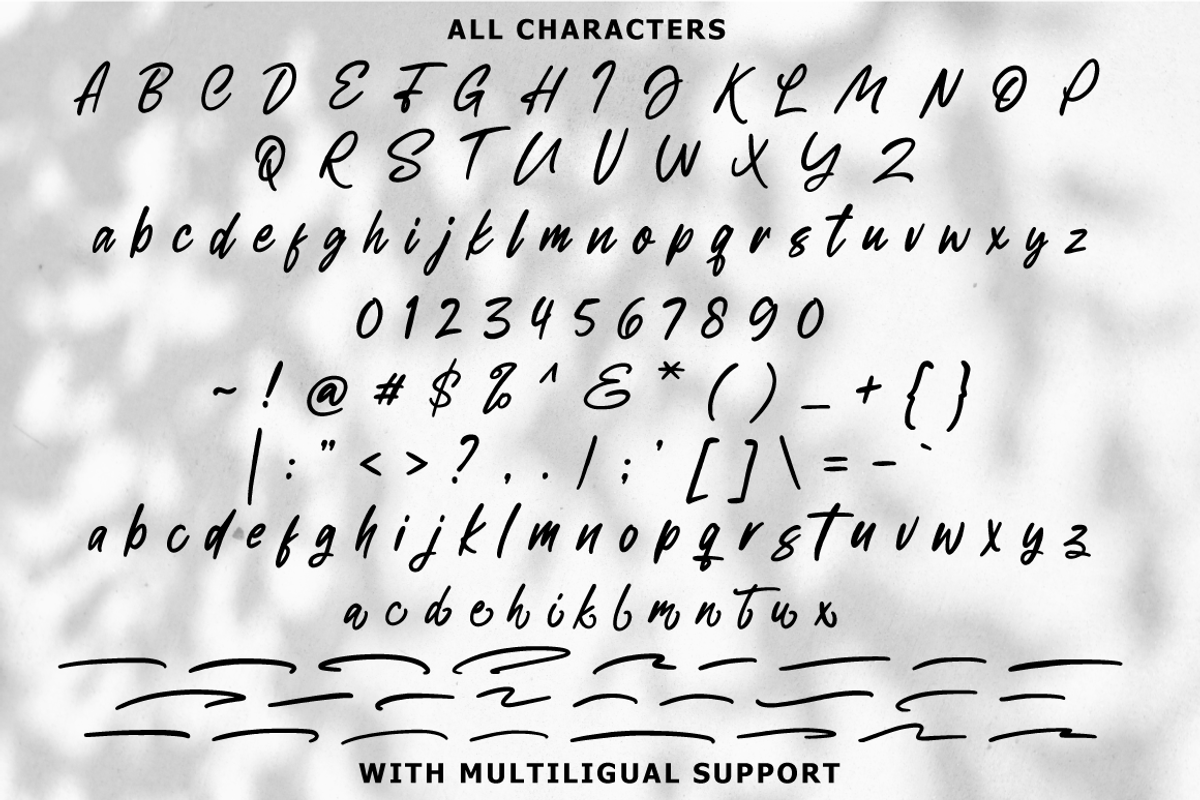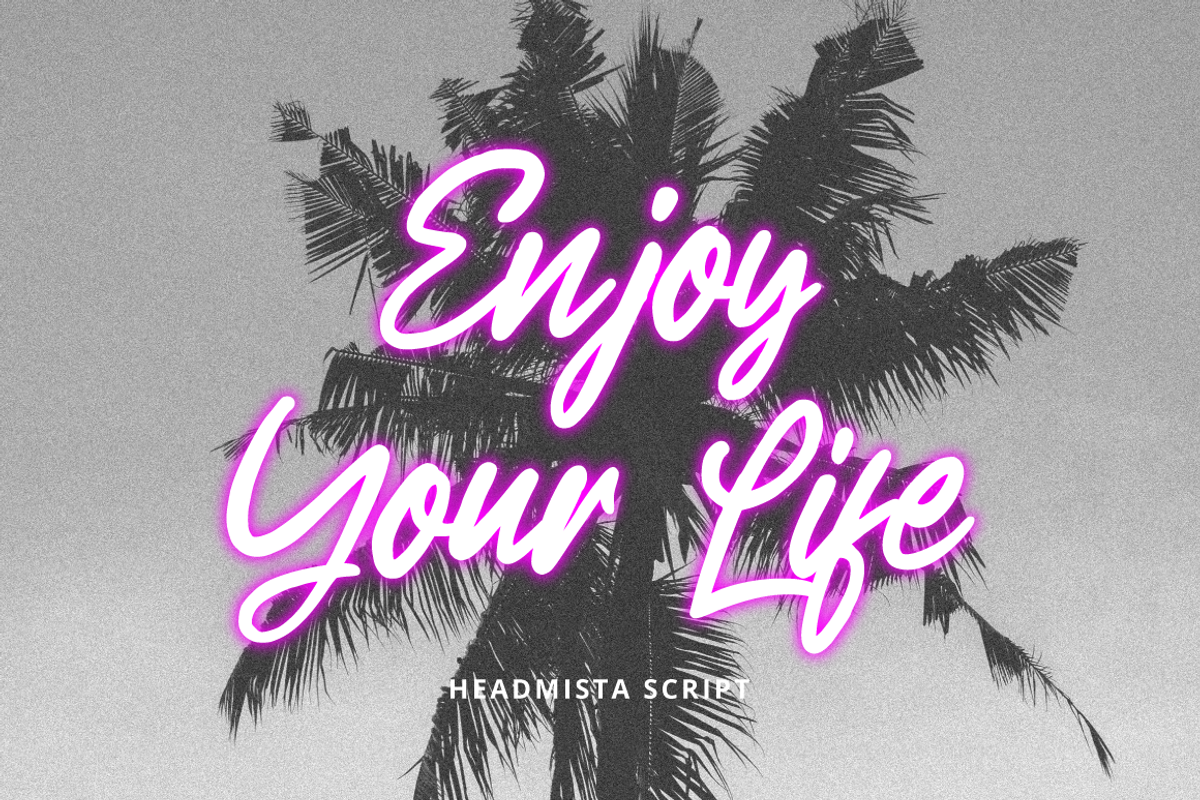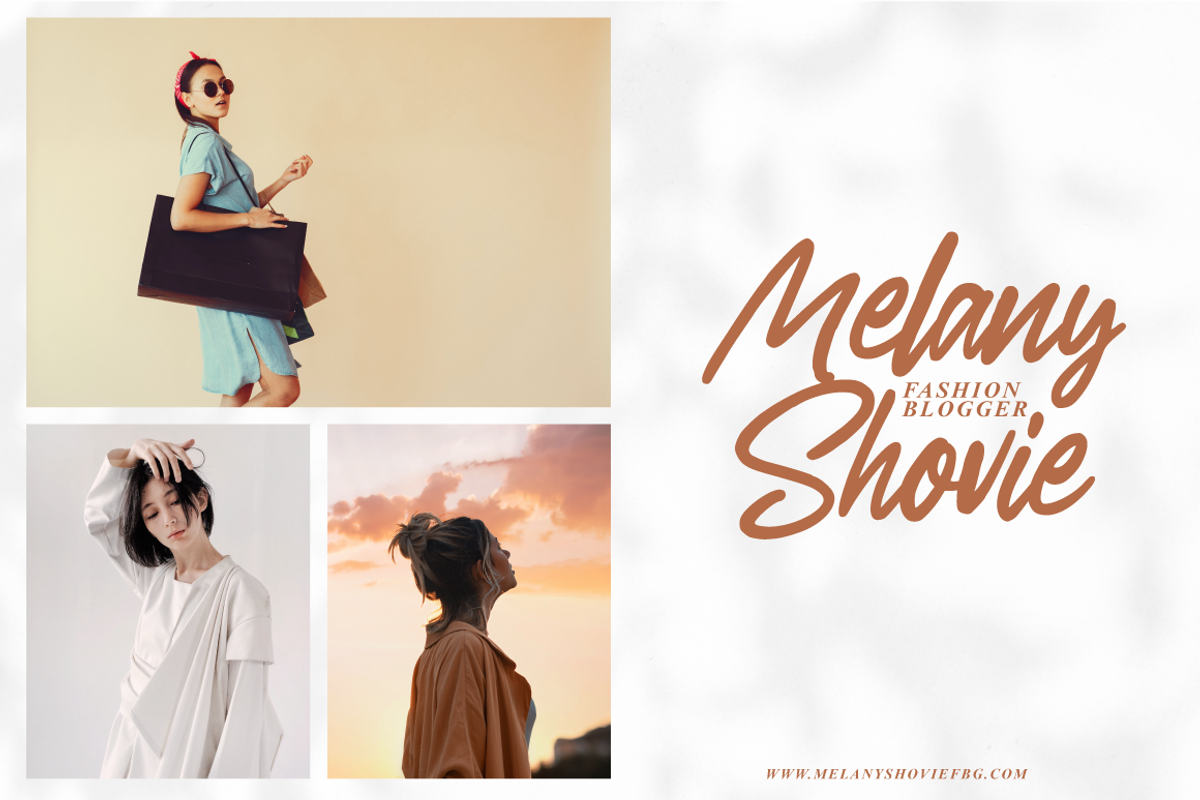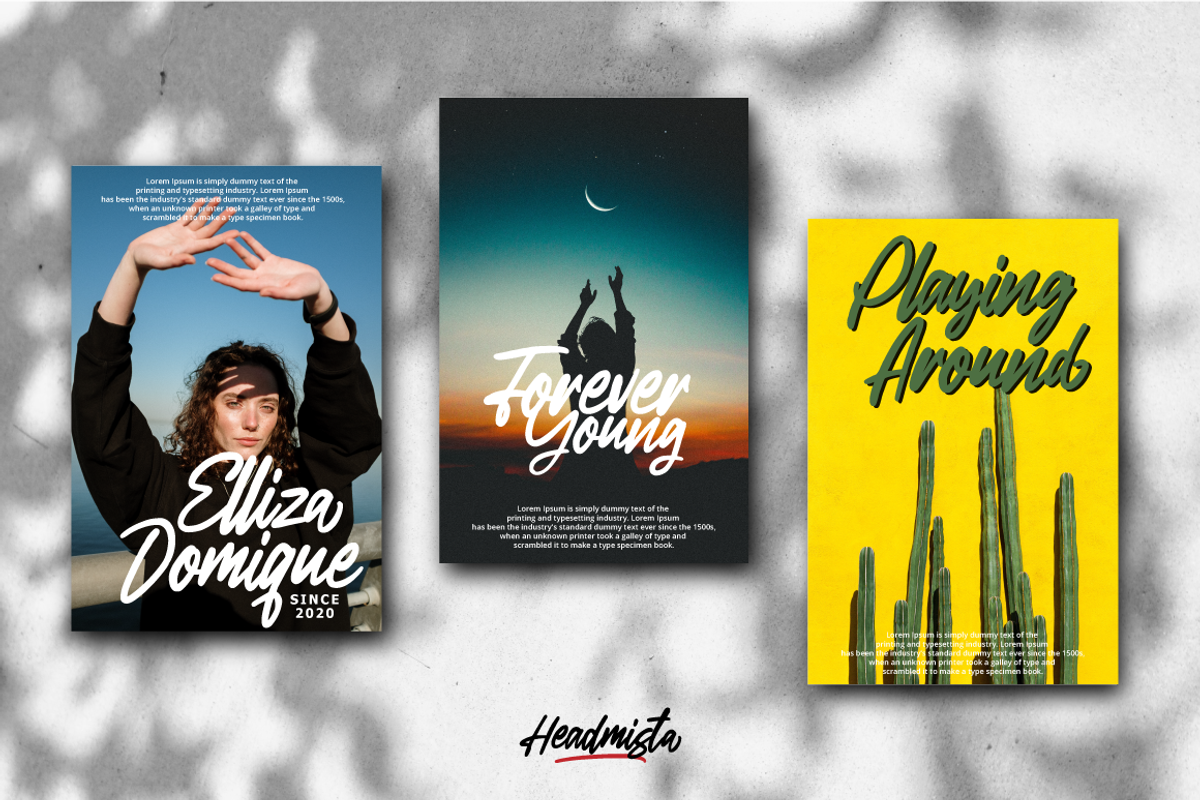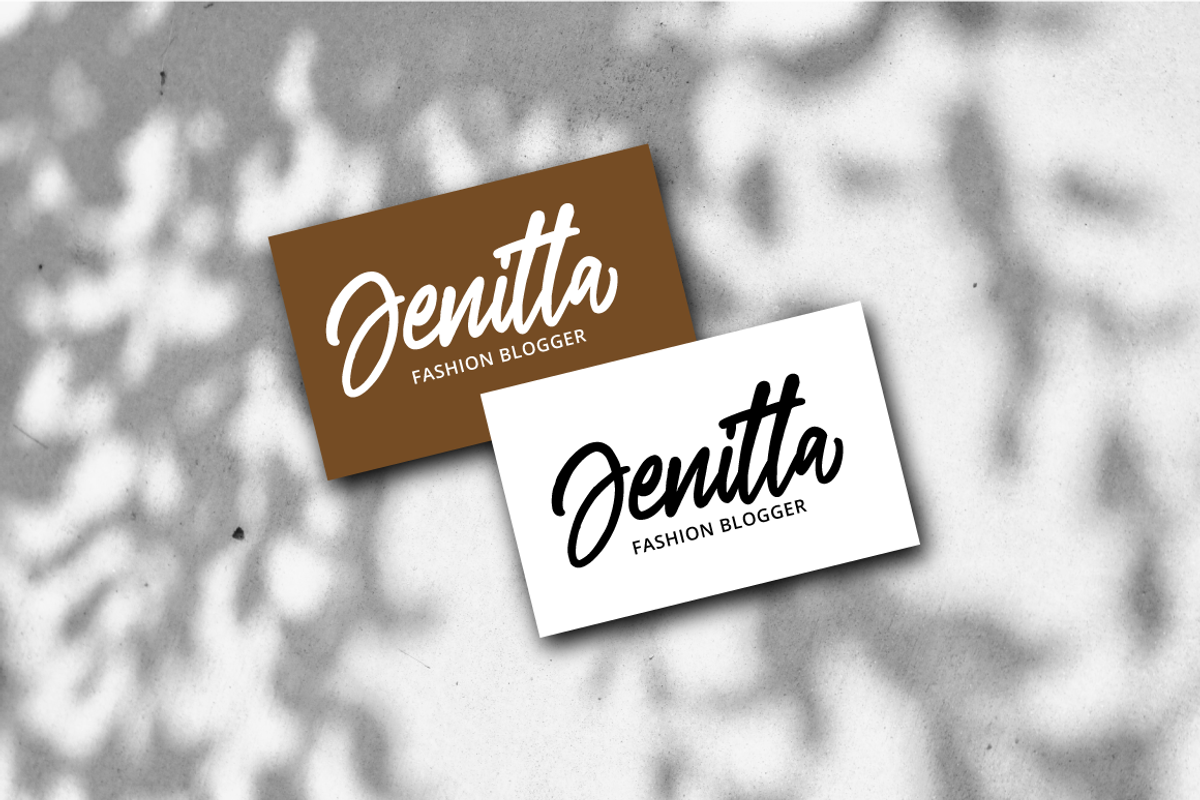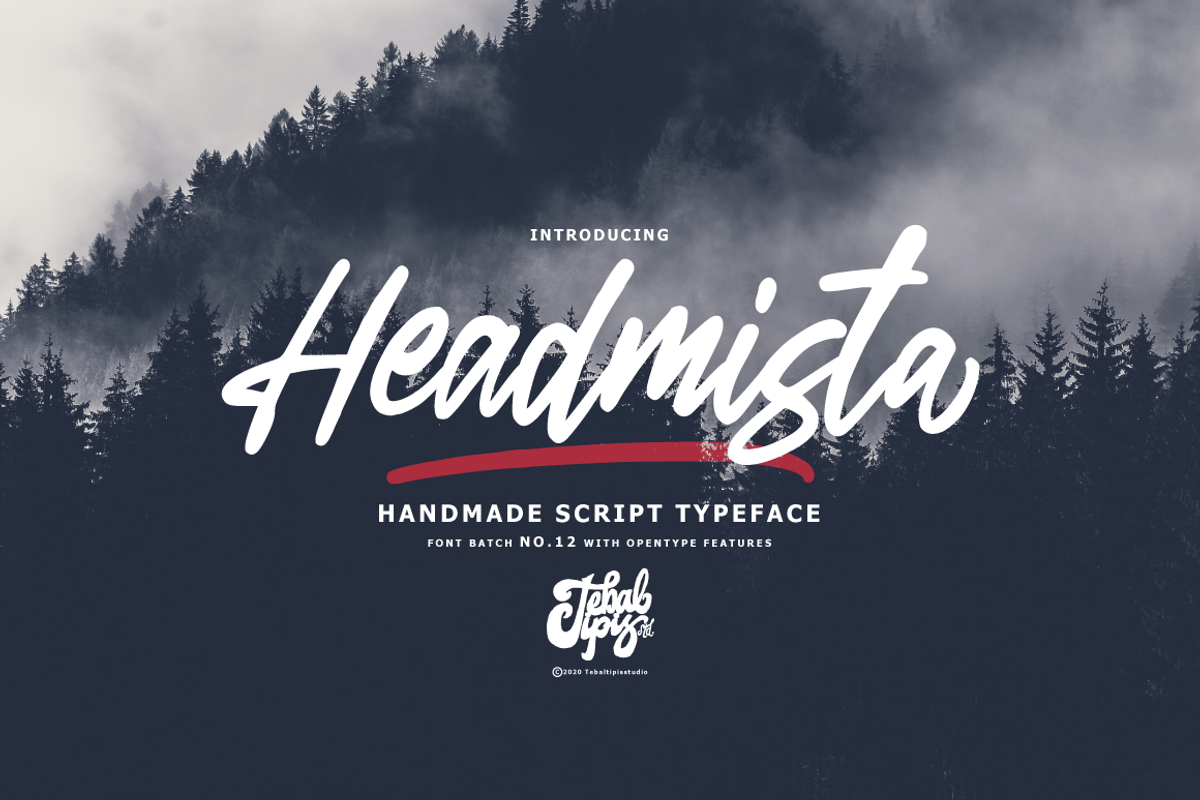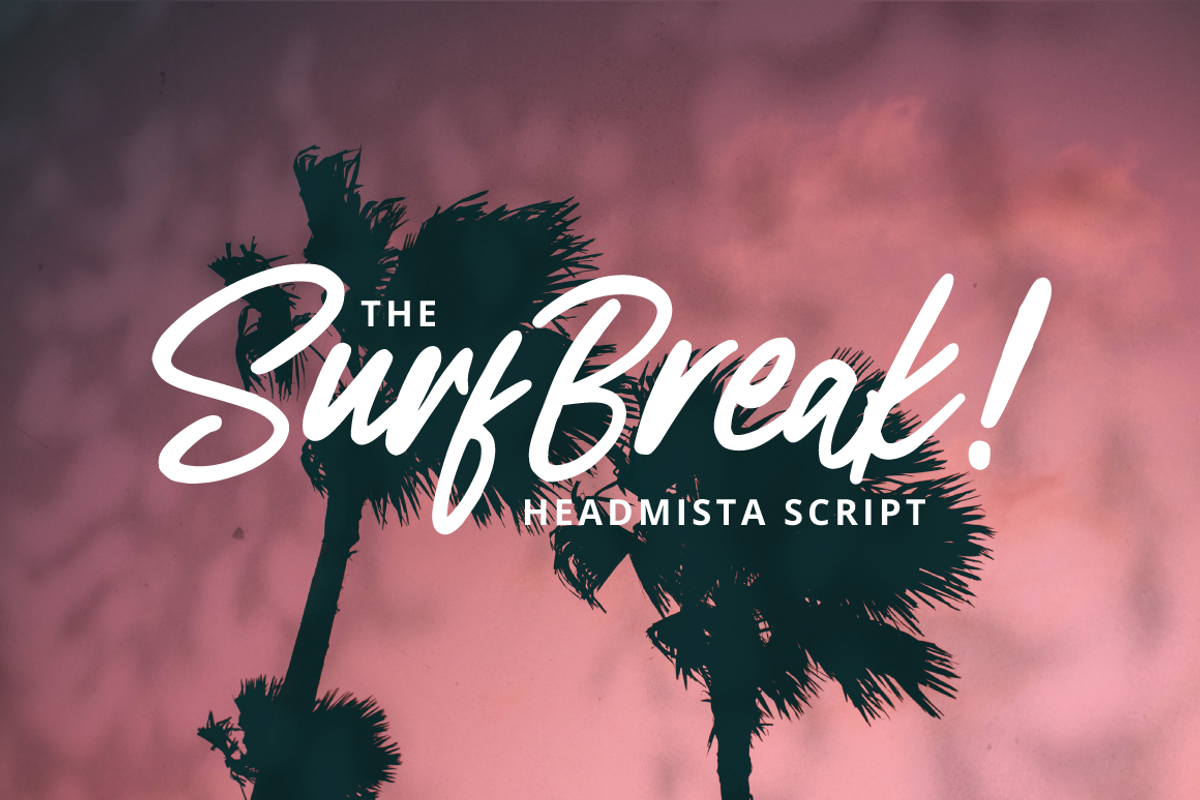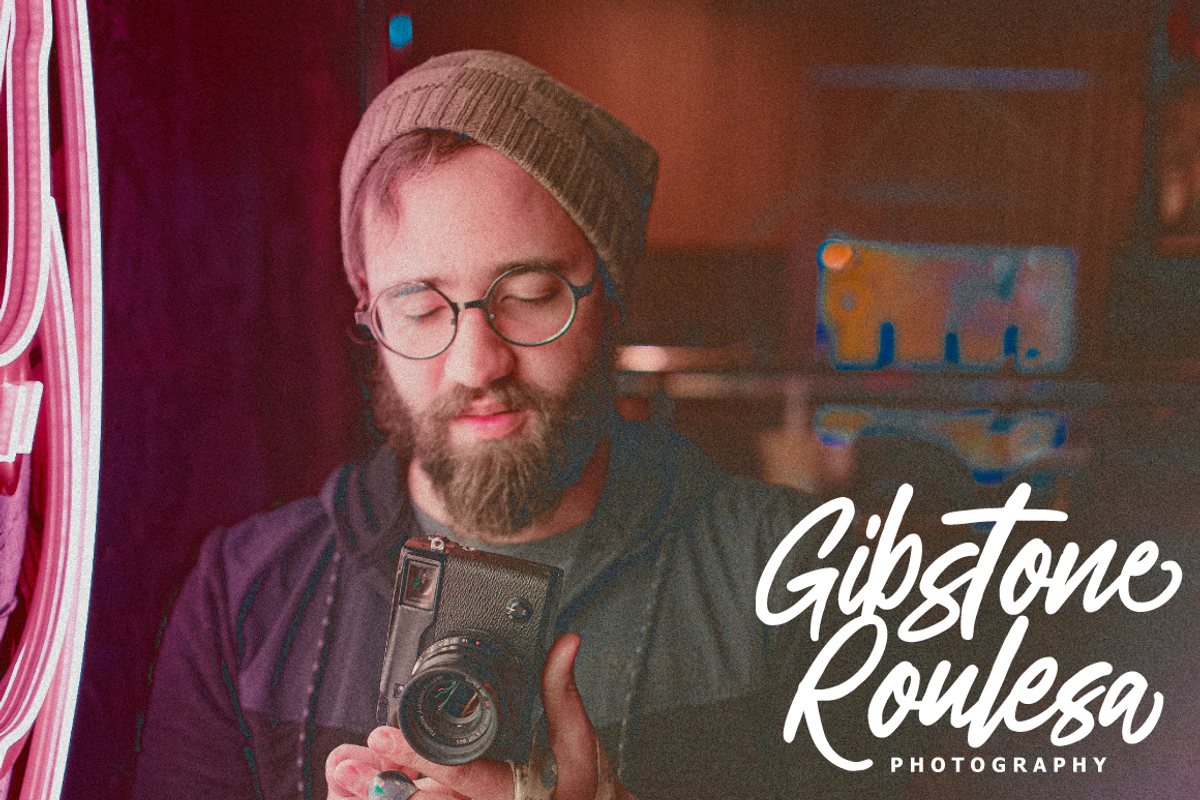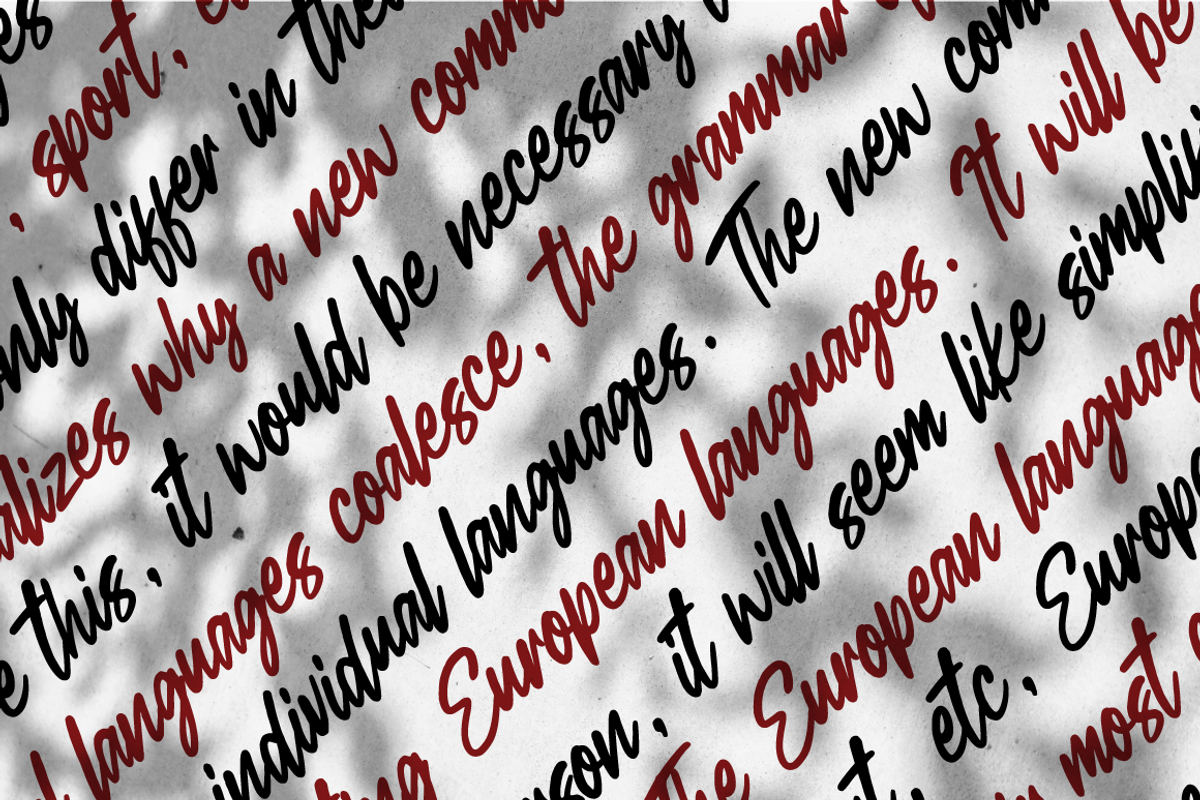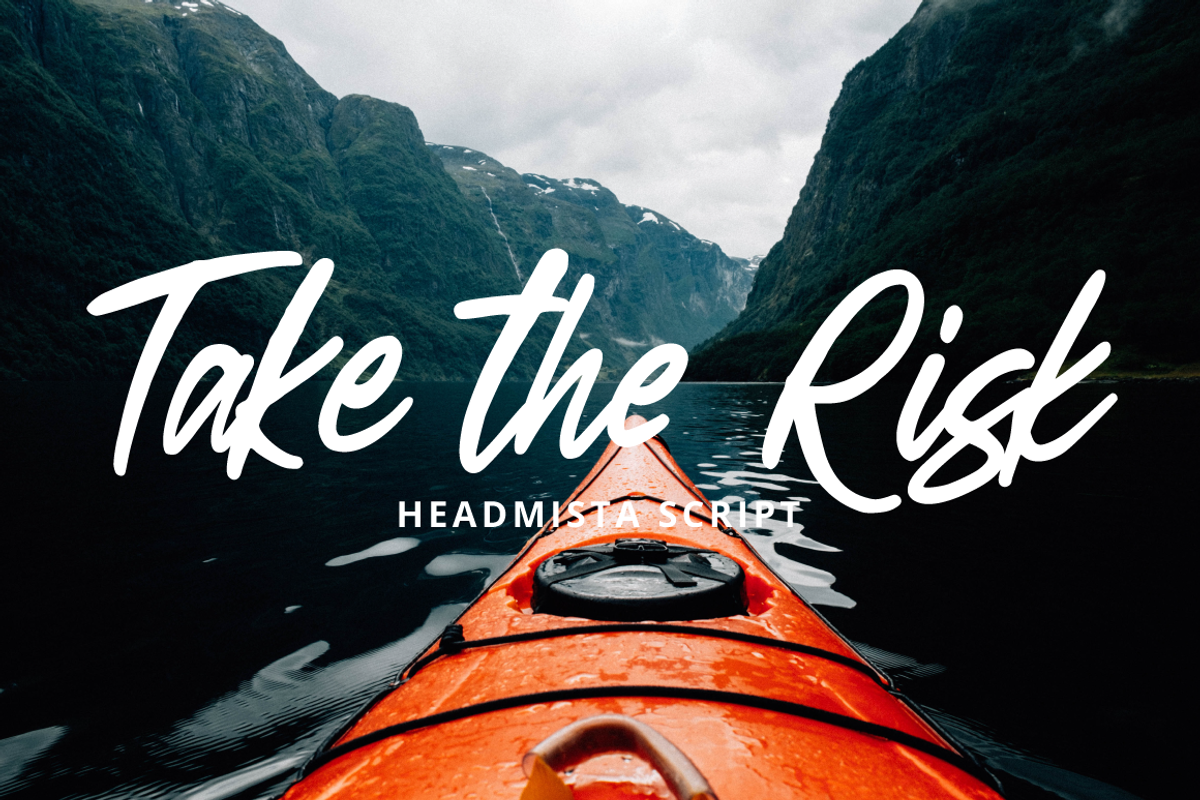
Headmista - Handmade Script
Headmista is a script typeface with personality. You can use it as a logo, badge, insignia, packaging, headline, poster, etc The alternative characters in this font were divided into several OpenType features such as Stylistic Alternates, Stylistic Sets, and Ligature. The OpenType features can be accessed by using OpenType program such as Adobe Illustrator, Adobe Photoshop, and Adobe InDesign.